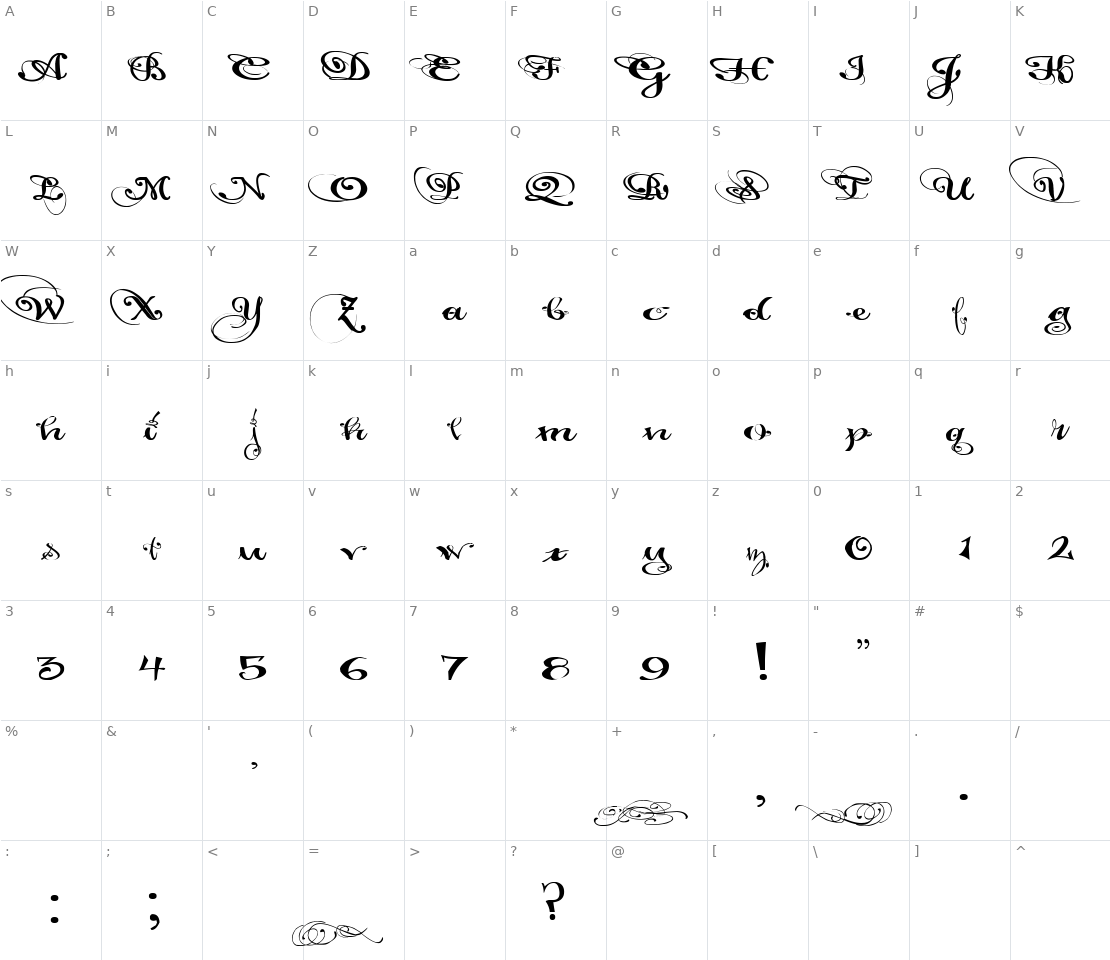
Pauls California
by Tattoo Paul
Pauls California is an ornate calligraphic display face by Tattoo Paul, loaded with sweeping swashes and elaborate flourishes that give it a distinctly fancy, hand-lettered quality. The letterforms carry real elegance without feeling stiff, balancing decorative excess with enough structure to stay readable at headline sizes. A natural pick for wedding invitations, luxury branding, certificates, and anywhere that calls for old-school penmanship with some extra drama.